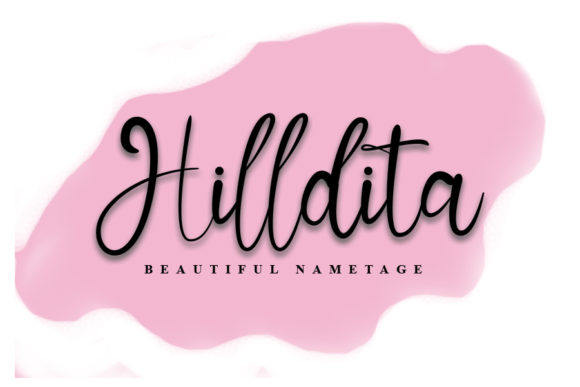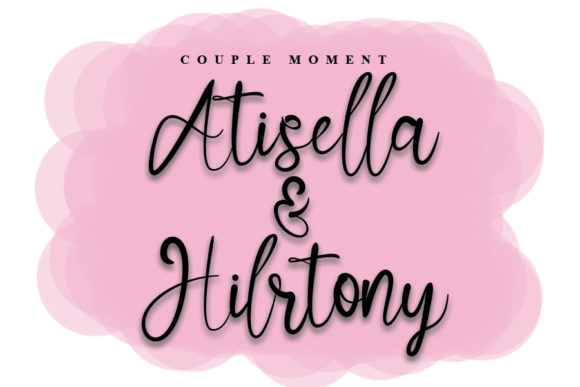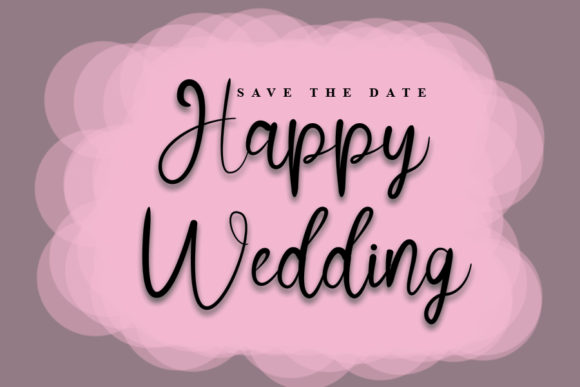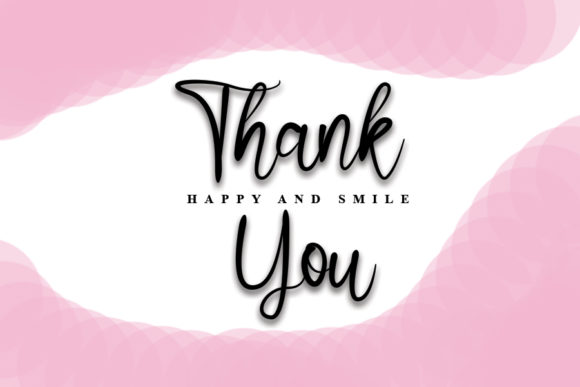
The Enchanting Birrllia Font: A Designer’s Dream Come True
I’ll never forget the time I was working on a wedding invitation project, and my client asked for a font that was elegant, delicate, and uniquely handwritten. I scoured the internet, tried countless fonts, but nothing seemed to fit the bill. That was until I stumbled upon Birrllia, an incredibly distinct, delicate, and timeless handwritten font. In this article, I’ll share my experience with Birrllia, its features, and how to make the most of it in your designs.
A Personal Review: What I Love About Birrllia
Birrllia has quickly become one of my go-to fonts for projects that require a personal touch. Here’s what I love about it:
• ✨ Unique and distinctive: Birrllia’s handwritten style is unlike any other font I’ve seen. Its delicate lines and curves make it perfect for designs that need a touch of elegance.
• ✅ Versatile: Whether you’re working on wedding invitations, thank you cards, quotes, greeting cards, logos, or business cards, Birrllia looks stunning and fitting.
• 💕 Emotional connection: The font’s handmade feel creates an instant emotional connection with the reader, making it ideal for projects that require a personal touch.
While Birrllia is an amazing font, it’s not without its quirks:
• 🤔 Limited use in large bodies of text: Due to its delicate nature, Birrllia might not be the best choice for large blocks of text. It’s better suited for headlines, titles, or short paragraphs.
• ⚠️ Requires attention to kerning: As with any handwritten font, kerning can be a bit tricky. Make sure to adjust the letter spacing to ensure optimal readability.
3. Experiment with OpenType features like ligatures and stylistic alternates to add more personality to your text.
Birrllia was designed with the intention of creating a font that captures the essence of handmade writing. The designer aimed to create a font that feels personal, elegant, and timeless. While I couldn’t find much information on the designer’s background, it’s clear that Birrllia was crafted with love and attention to detail.
What type of projects is Birrllia best suited for? Birrllia is perfect for designs that require a personal touch, such as wedding invitations, thank you cards, quotes, greeting cards, logos, and business cards.
Is Birrllia a difficult font to work with? While Birrllia requires some attention to kerning and may not be suitable for large bodies of text, it’s generally easy to work with. Its OpenType features and glyphs make it versatile and fun to use.